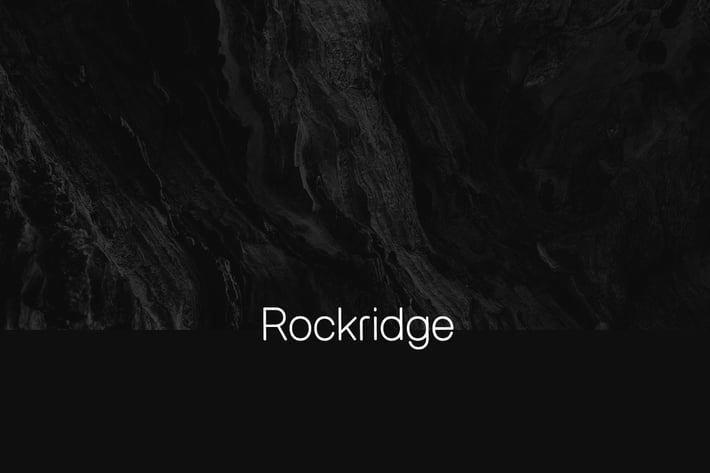
Rockridge Modern Typeface + Web-fonts
Rockridge Modern Typeface
Rockridge Sans is a modern Sans Serif typeface very much suitable for Film Posters, headlines, Package Designs, Branding, Logo Designs, Big Banners. Clean & Decorative Typography Web Designs.